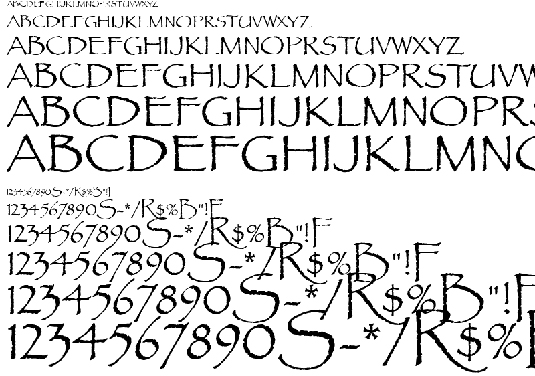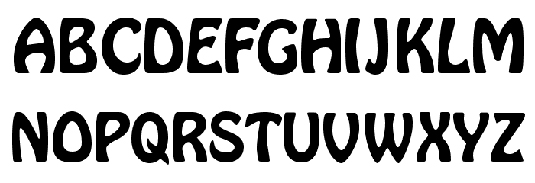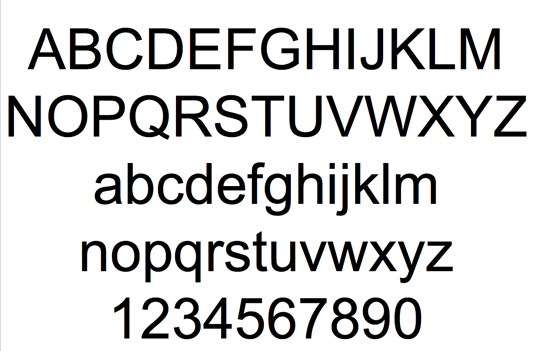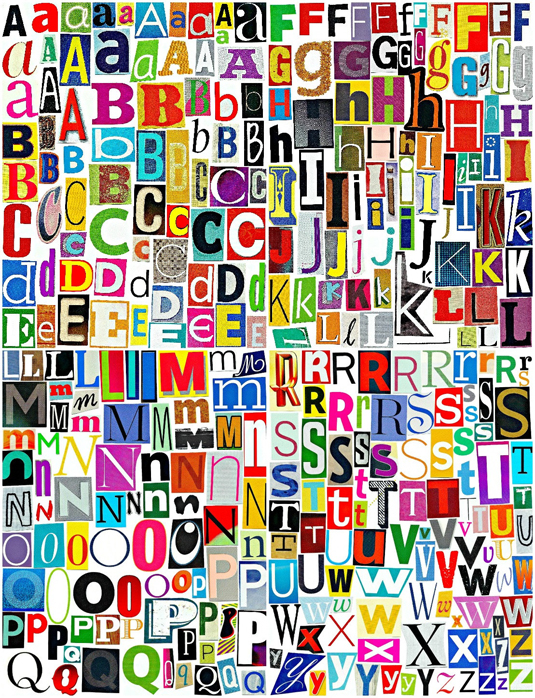
The stupidest fonts of all time
Everyone has their favourite typefaces. But what about those that offend the eyes?
Fonts can be beautifully functional, quietly powerful, and subtly sophisticated. They can also be stonkingly stupid, managing to repulse every creative atom in a creative's body, simply by their essence of 'dumb'.
But what makes a stupid font truly stupid? Pretension? Overuse? Whackiness?!
Well, we've trawled the World Wide Web to find the most idiotic fonts of them all. This may sound like a purely subjective exercise. It's not. These really are the dumbest of the dumb.
09. Shelley Script
Unsurprisingly for a font named after a hypersensitive romantic whinefest, Shelley (pronounced 'Shell-aye') is more than a little affected.
No doubt, the makers of this limp-wristed scrawl would have it used exclusively for deeply personal observations on the fiery throb of unrequited love... We think it's better suited to bum jokes. And even then it looks dumb.
08. Ransom Note fonts (there are LOADS!)
For sure, the uniformness of Brush Script makes it thunderously 'duh!'. But that doesn't mean that the opposite makes for a clever thing.
Each Ransom Note font – and there are several – is unique. That is, each letter is as uniquely imbecilic as the next. Combined, you can create sentences that will actually lower the IQ of anyone that reads them.
No-one knows the origin of Ransom Note fonts.
07. Arial
To be honest, we don't have anything against Arial. It's unassuming, not-that-elegant, not-that-showy vibe is entirely ignorable.
But speak to any font fan, and before you've exchanged names they'll be regaling you with how this Helvetica/Monotype Grotesque bastard child has been so overused that it has become a symbol for all that is dim-witted.
06. Papyrus
Best known as the favourite font of James Cameron's ancient blue alien people in Avatar, Papyrus is actually a free font that comes on all personal computers.
It may impress a child as a classy text-type from another land, but kids are notoriously bad-brained, and so is this font. Unless you use it to spell out 'David Icke'. It looks pretty cool then.
05. Hobo
The name is daft, the font dafter. It looks like there's a mighty wind coming from starboard side, and all the chunky, funky letters are trying not to fall over.
There's not a straight line in sight, and everyone knows the old saying: 'no straight lines, you’re stupid!'
04. Giddyup
There's a story behind this font known to all in the typeface industry: some time in the 1970s, a publishing mogul was caught in a legal dispute over his use of an unlicensed font in his magazines.
Pinned in between a lawsuit and a deadline, he used the pages of his daughter's diary, and Giddyup was born.
This story is a complete lie, but at least it's a little less absurd than the font.
03. Bleeding Cowboys
You know that kid in school who used to wear black all the time, and always frowned, and spread rumours that he'd killed a man with a knife, and he'd often look into the distance and slowly exhale, so you'd think he was profound and tortured? This is that, but in font.
The kid is now a well-adjusted father of three, and manager of a paper stockist. Bleeding Cowboys font remains pretentious.
02. Comic Sans
There's been a swell of professional, actually-employed designers that have stuck their necks out and said, 'No! Comic Sans is not the stupidest font. It has it's place, and serves a purpose.'
But they're wrong. It's a stinker. It's synonymous with people that aren’t creative trying to be creative, and that is in fact the definition of stupid.
Its history is equally dull. The font was introduced in 1995 by the US government to coincide with the release of Jennifer Love Hewitt's debut album Lets Go Bang in an attempt to make everyone smile. It merely created generations of quivering dum-dums.
01. Curlz
Sure, Curlz is sub-mental, but it's important in one respect – it's more annoying than Comic Sans. At least Comic Sans is Comic Sans, and not Comic Sanz... This font thinks its French!
And like a stopped clock, Curlz is totally, utterly pointless. Unless you're making a whimsical poster for a baking party… you're not making a baking party poster, are you?!